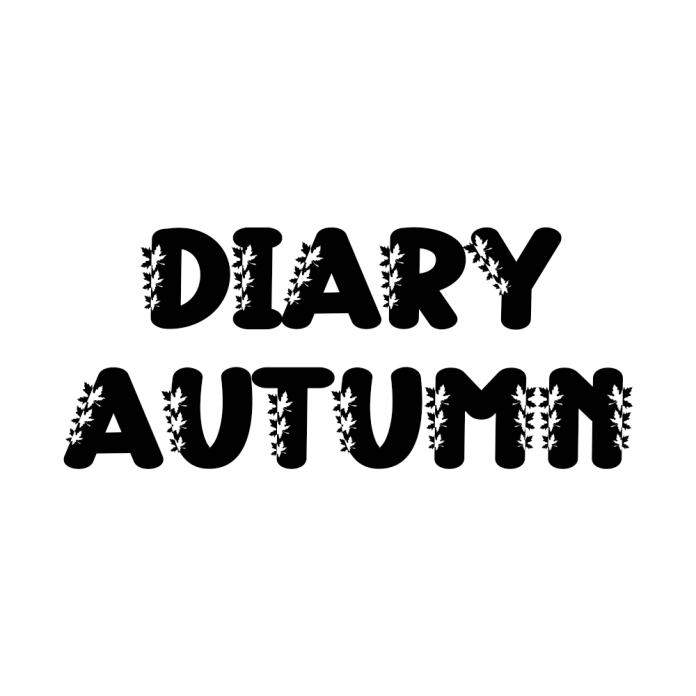
Diary Autumn Font is a sweet and friendly handwritten font. Fresh and casual, this font is ideal for writing wedding invitations, cards, or any other design that might need a lovely touch.